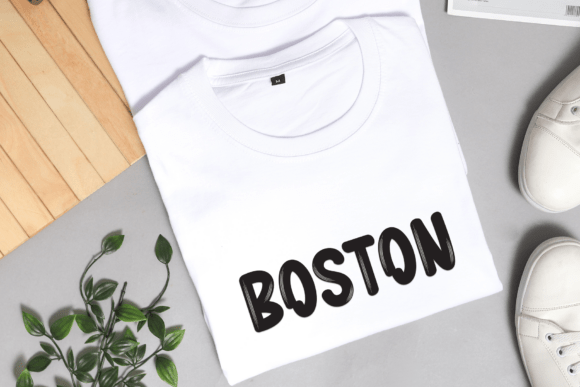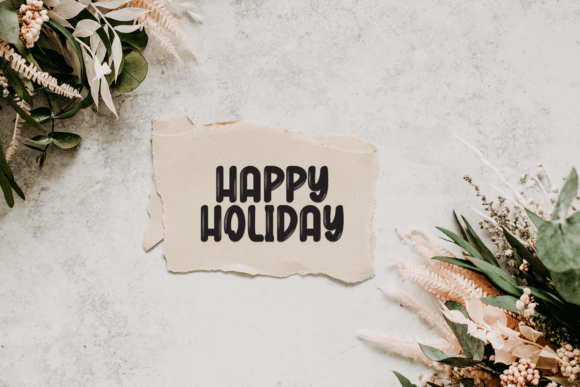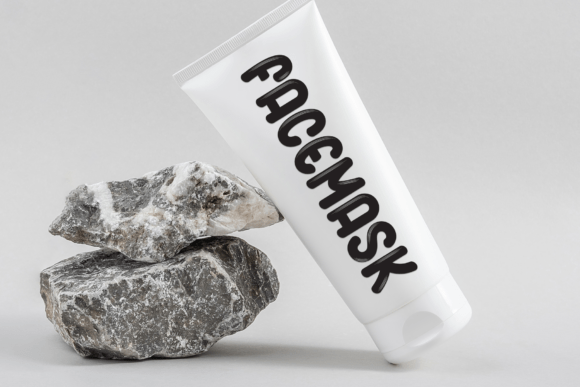
Introduction to Smart Builder Font
As a designer, have you ever been on a project where you’ve had to convey a sense of rugged, hands-on expertise? Maybe you’re working on a campaign for a construction company, or a DIY enthusiast looking to create a unique brand identity. Whatever the case, you need a font that embodies that feeling of confidence and craft.
That’s where the Smart Builder Font comes in – a strong and creative display font that exudes bold curves and subtle stroke textures. This design resource is perfect for construction branding, business cards, signage, or any other creative project where you want to make a statement. With the Smart Builder Font, you can give your designs a high-quality, professional look that’s hard to ignore.
Key Features of Smart Builder Font
- High-quality design: The Smart Builder Font is a premium font designed for creative projects, offering a high-quality design that will elevate your work.
- Transparent background: The font features a transparent background, allowing for seamless integration with your design and giving you complete control over the background.
- High-resolution design: With a resolution of 300 DPI, this font is perfect for high-end designs, such as print materials, signage, and large-format displays.
- Perfect for creative projects: Whether you’re working on a branding project, designing a website, or creating marketing materials, the Smart Builder Font is the perfect choice for your next creative project.
Honest Review: Smart Builder Font
As a designer, I’m always on the lookout for high-quality design resources that can elevate my creative projects. Recently, I had the opportunity to try out the Smart Builder Font, and I’m excited to share my thoughts with you.
- ✨ High-quality font files that are perfect for various design applications
- ✨ Transparent background, allowing for seamless integration with any design element
- ⚠️ Limited font styles and weights, which may not be suitable for complex design projects
- ⚠️ Some users may find the font’s aesthetic to be too minimalist, lacking character and personality
Overall, I’d say the Smart Builder Font is a solid addition to any designer’s toolkit. While it may not be perfect, its high-quality font files and free download option make it an excellent resource for creative projects. If you’re looking for a simple, clean font to elevate your designs, the Smart Builder Font is definitely worth checking out.
Common Use Cases for Smart Builder Font
The Smart Builder Font is ideal for creating visually appealing graphics, logos, and branding materials. Its transparent background feature makes it perfect for designing overlays, icons, and other design elements.
Tips for Getting the Most Out of Smart Builder Font
Experiment with different font sizes, colors, and styles to create a unique design look. Use the font’s transparent background feature to create visually appealing design elements.